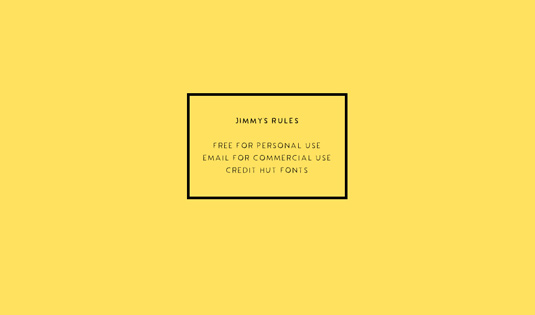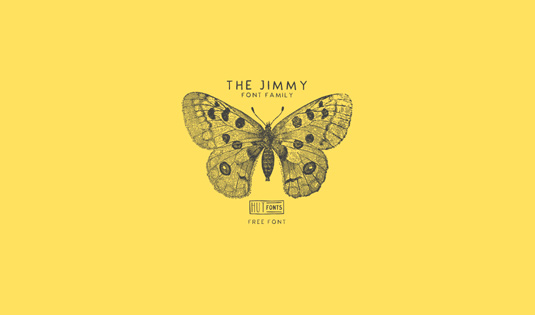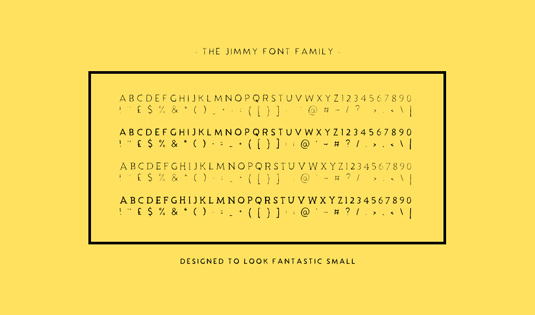
Font of the day: Jimmy
Every day we showcase the best fonts on the web. Today it's Jimmy by Tom Chalky, which is free for personal use.
Jimmy by Tom Chalky
Tom Chalky loves creating hand-drawn fonts and custom lettering pieces, which includes working on this free font family, Jimmy. "The whole purpose when designing Jimmy was to create a font that looked great small whilst still holding onto that hand drawn aesthetic that we love - making him great for slogans and the usual 'accent' words (original, vintage, est.since, etc).